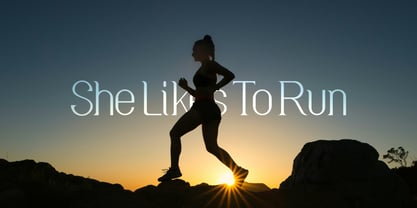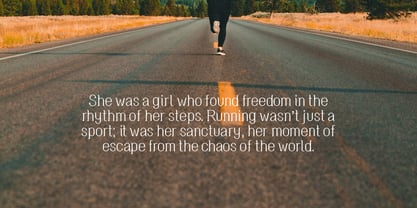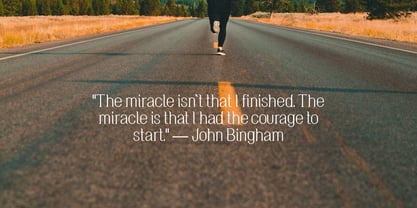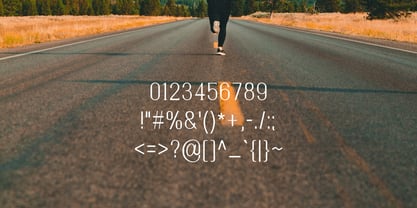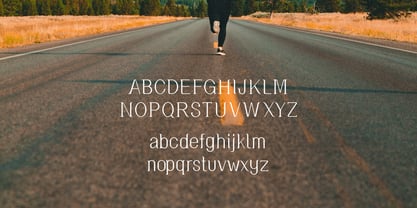
She Likes To Run
by WildanN
The She Likes To Run Font Family was designed by and published by WildanN. She Likes To Run contains 1 styles. More about this family
"She Like To Run" is a stylish, light letterforms with narrow spacing, and smooth curves. They work well in designs that aim for a sleek, sophisticated look without being overly bold.
With its light, sleek, slim and delicate strokes "She Like To Run" will gives a feel of elegance, sophistication, suggest a polished and high-end aesthetic.
The smooth, flowing curves often evoke a sense of beauty and fluidity, which works well for messages that aim to be soft, inviting, or romantic making it ideal for luxury brands, invitations, or fashion-related designs.